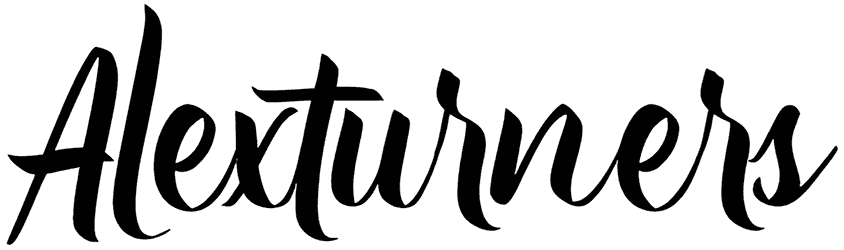
Alexturners Font
Alexturners is a classy, neat script font with a lovely, modern, and fancy mood that makes it a good choice for romance novel books and matching couple tattoos. The texture conveys the sense of nib handwriting, so you can use it as a personal signature or for writing a casual postcard.
This kind of font also works great for fashion magazine titles due to its stylish features. In addition, it is usable for text bodies because of its simple and elegant characters.